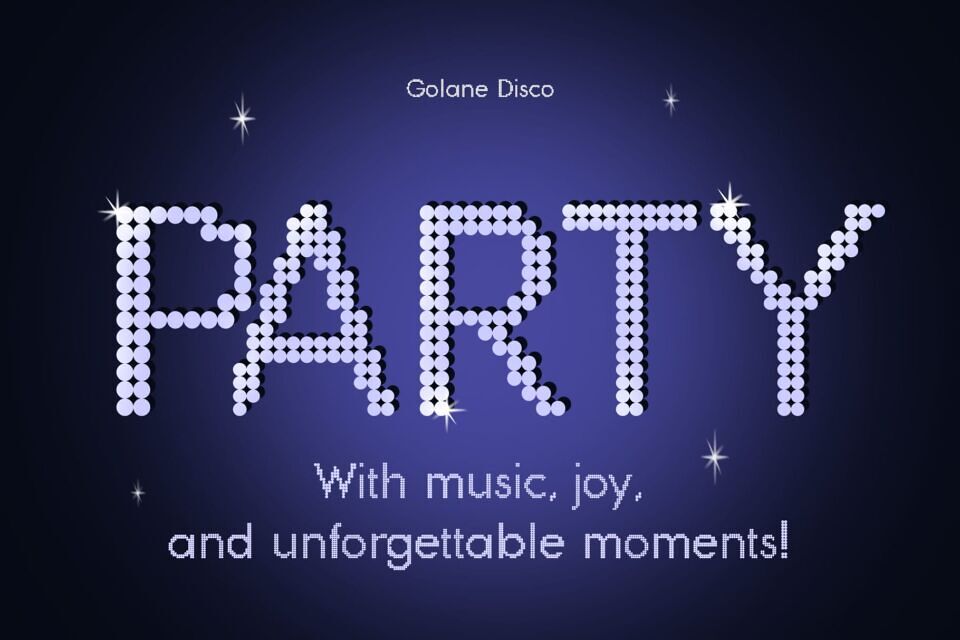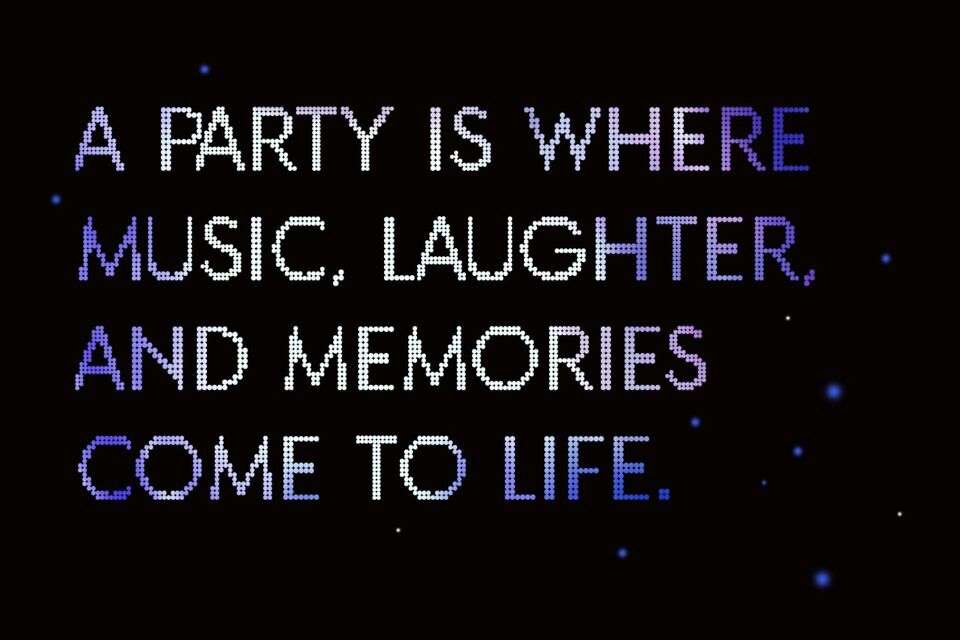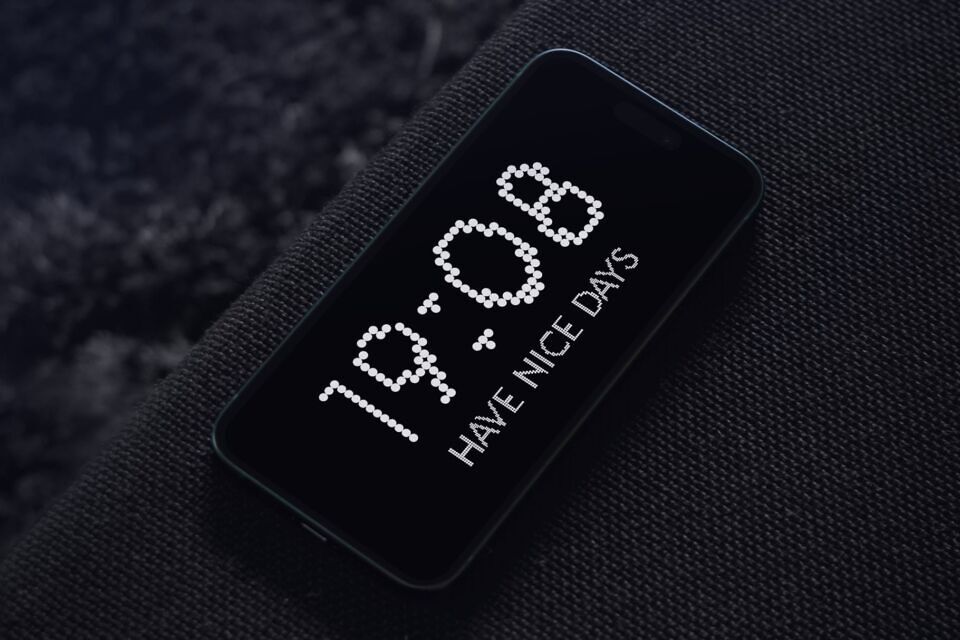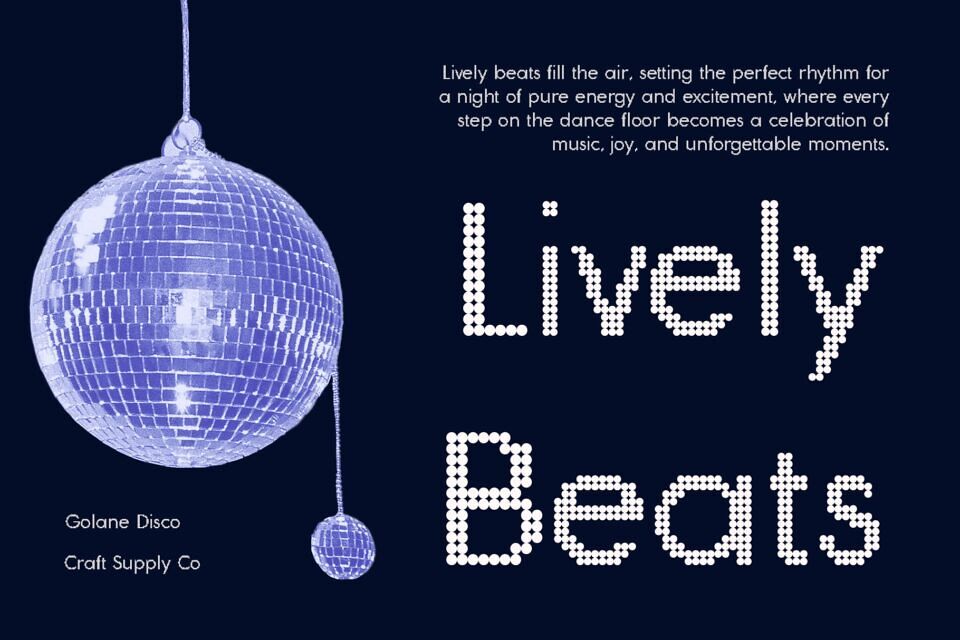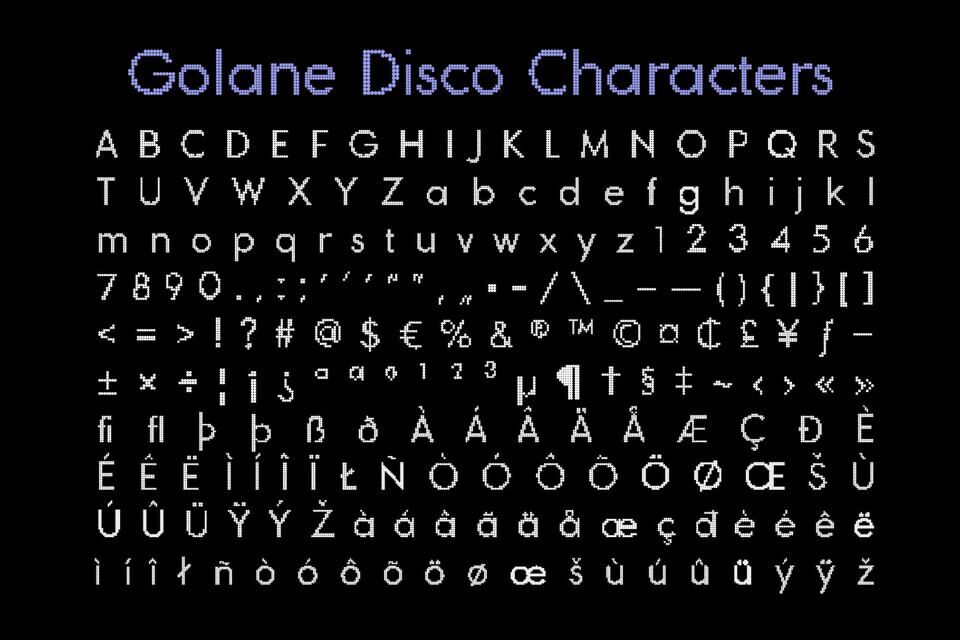
Golane Disco is a modern sans-serif font that merges geometric precision with a vibrant, rhythmic aesthetic. Inspired by the energy of disco lights and neon reflections, this font exudes a sleek and futuristic charm, making it an eye-catching choice for bold and dynamic designs.
Infused with a subtle glow, light reflections, and neon-inspired details, Golane Disco captures the essence of retro-futuristic visuals. Whether it’s used for posters, event promotions, or branding, its shimmering effect adds a sense of motion and liveliness, bringing designs to life.
While its structure remains clean, minimalistic, and geometric, Golane Disco stands out with its playful yet sophisticated details. The contrast between simplicity and vibrant accents makes it a versatile choice for projects that demand both clarity and personality.
Golane Disco is ideal for branding, music covers, nightlife promotions, digital graphics, and anything that calls for a bold and electric presence. Whether you’re designing for the modern age or reviving vintage aesthetics, this font delivers a captivating and stylish impact in every application.